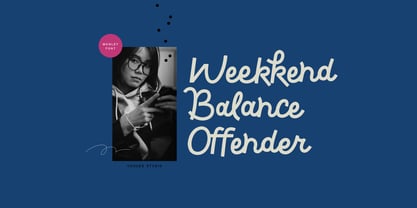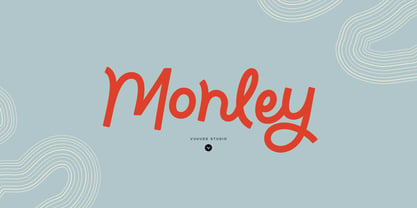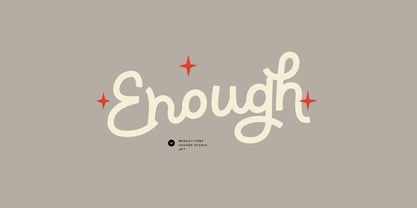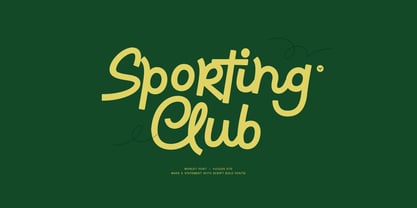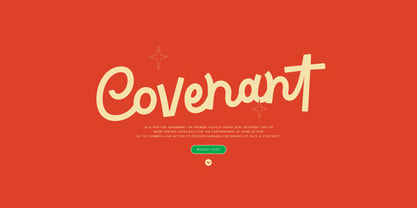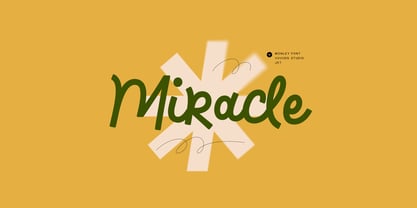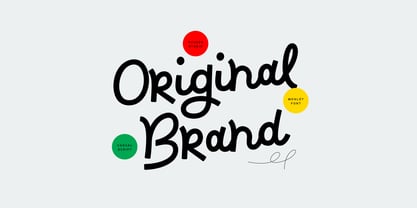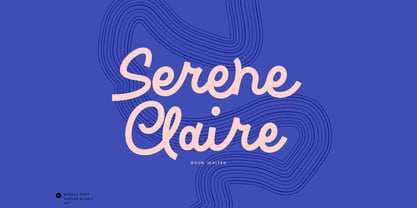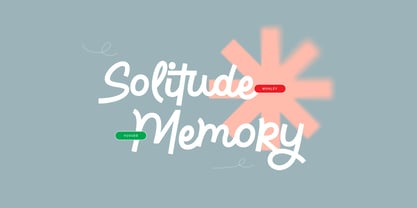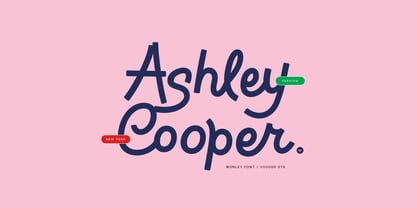
Monley
by vuuuds
The Monley Font Family was designed by Agung Syaifudin and published by vuuuds. Monley contains 1 styles. More about this family
Monley is modern script font, every single letter have been uniquely crafted.
Designers: Agung Syaifudin
Foundry: vuuuds